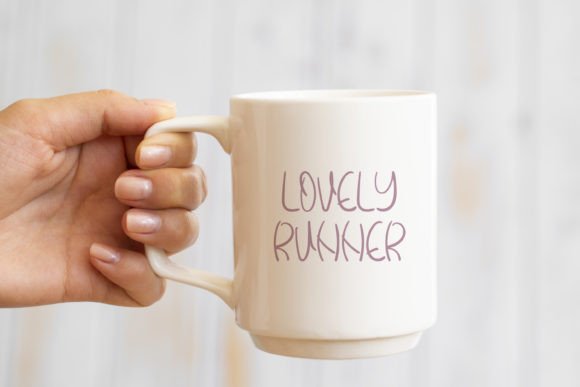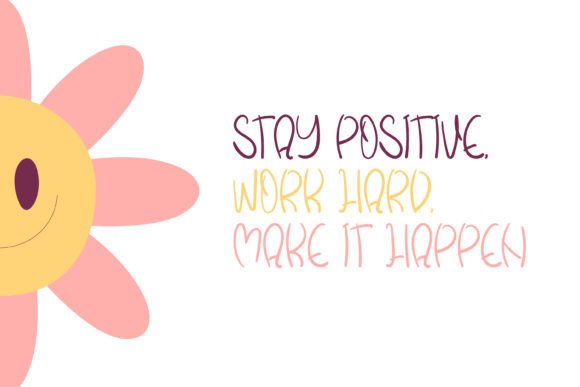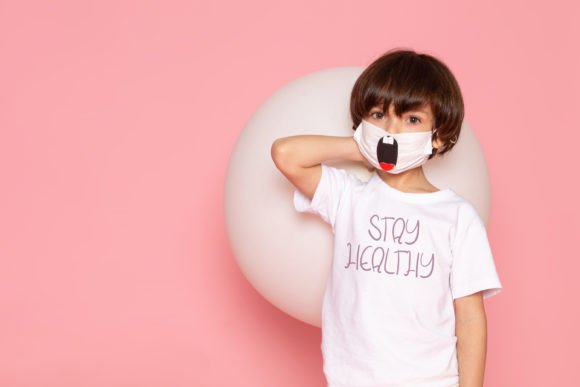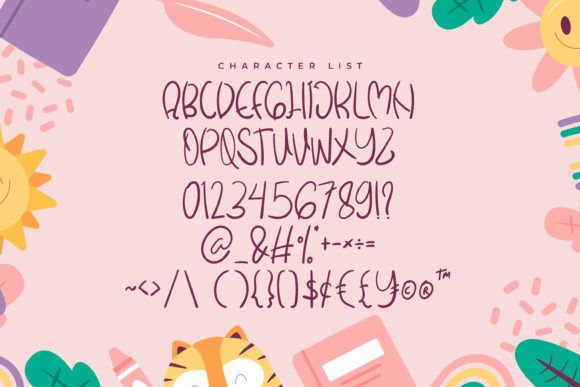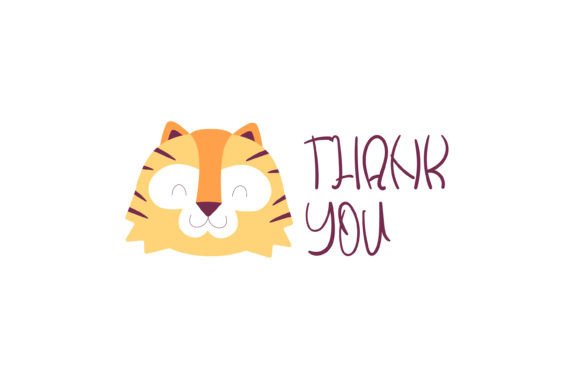
Introduction to Metype Font
Have you ever been brainstorming ideas for a creative project, only to be stumped by the perfect font to bring it all together? For designers and enthusiasts alike, finding that elusive font can be a daunting task. But what if I told you that there’s a font that embodies the perfect blend of trendiness and authenticity, making it the perfect choice for any children’s activity or school project?
Meet the Metype Font, a high-quality, playful, and cute display font that’s sure to capture the hearts of designers and users alike. With its transparent background and versatility, it’s the perfect design resource for any creative project. Whether you’re working on a children’s book, a school project, or a fun graphic, the Metype Font is sure to add that extra special touch.
Key Features of Metype Font
- High-quality design resource for various creative projects, including digital art and graphic design.
- Features a transparent background, making it easy to use in various design scenarios without any distractions.
- Includes a range of characters, including uppercase and lowercase letters, numbers, and punctuation marks, to support various creative needs.
- Designed with a modern and sleek aesthetic, making it perfect for use in contemporary design projects.
Honest Review: Metype Font
As a designer, I’m always on the lookout for high-quality design resources that can elevate my creative projects. The Metype Font is one such resource that caught my attention.
Some of the key features of the Metype Font include:
- High-quality design that’s suitable for digital interfaces
- Transparent background, making it easy to layer over images
Overall, the Metype Font is a solid design resource that’s perfect for digital projects. While it may have some limitations, its high-quality design and customizable options make it a valuable addition to any designer’s toolkit.
Tips for Getting the Most Out of Metype Font
For a high-quality design resource, consider using the Metype Font on a transparent background for a creative project.
The Metype Font is ideal for creative projects such as logo design, branding, and typography-based art.
It’s also suitable for presentations and documents that require a unique and professional touch.